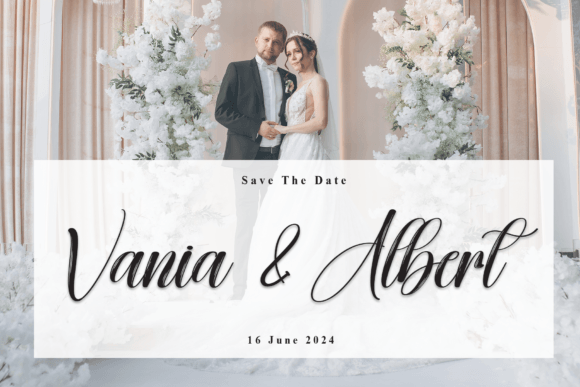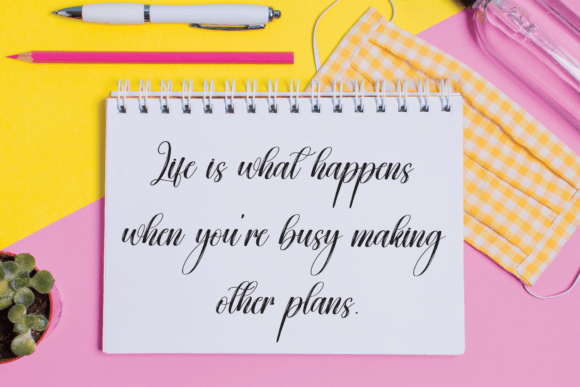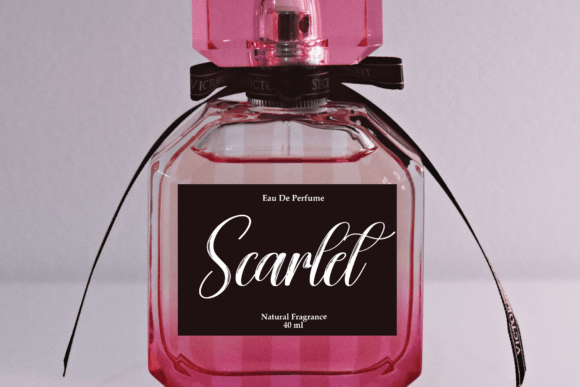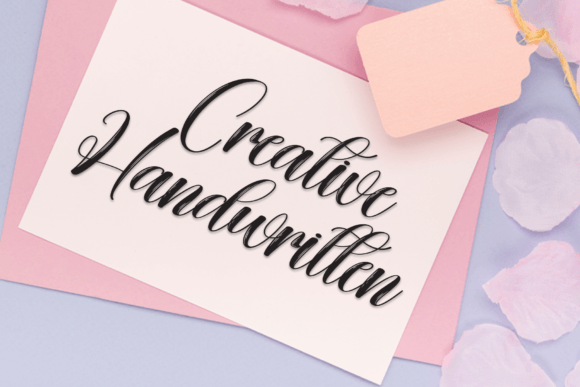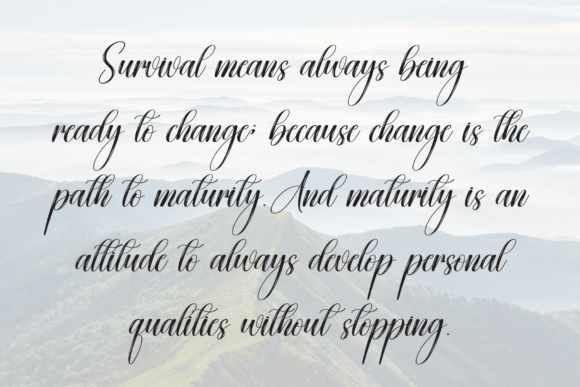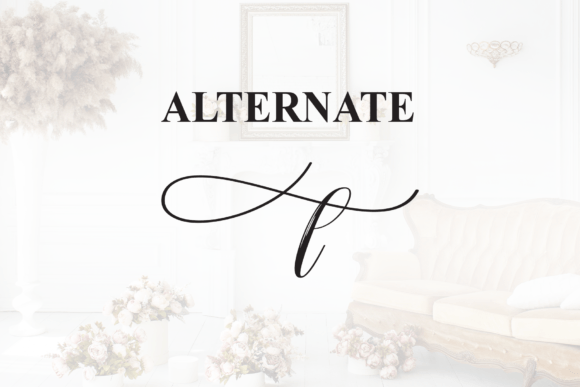
Introducing Decoration Font: Elevate Your Designs with Elegance and Sophistication
In the world of design, fonts play a crucial role in conveying the tone and personality of a project. For those seeking a touch of elegance and sophistication, Decoration Font is an exceptional choice. This stylish and incredibly elegant script font is perfect for adding a handwritten touch to various designs, making it a versatile and valuable asset for designers and crafters alike.
The Versatility of Decoration Font
Decoration Font is a highly versatile typeface that can be used across a wide range of design projects. Its elegant and cursive script makes it particularly well-suited for:
- Wedding Invitations: Add a touch of romance and sophistication to your wedding invitations, making them truly unforgettable.
- Thank You Cards: Express gratitude in style with beautifully crafted thank you cards that exude warmth and appreciation.
- Quotes: Bring inspirational quotes to life with a decorative and eye-catching font that adds emphasis and personality.
- Greeting Cards: Create stunning greeting cards for various occasions, from birthdays to holidays, that are sure to impress.
- Logos: Elevate your brand identity with a custom logo that incorporates the elegance of Decoration Font.
- Business Cards: Make a lasting impression with professionally designed business cards that showcase your personal style.
Why Choose Decoration Font?
With Decoration Font, you can expect:
- Elegant and Sophisticated: A beautifully crafted script font that adds a touch of luxury to your designs.
- Handwritten Touch: A unique and personal feel that sets your designs apart from the rest.
- Highly Versatile: Suitable for a wide range of design projects, from digital to print.
Decoration Font is an exceptional addition to any designer’s toolkit. Its elegant and sophisticated script font offers a unique and personal touch that can elevate a wide range of design projects. Whether you’re working on wedding invitations, logos, or greeting cards, Decoration Font is sure to impress. With its versatility, ease of use, and stunning aesthetic, it’s an excellent choice for designers and crafters seeking to add a touch of luxury to their work.